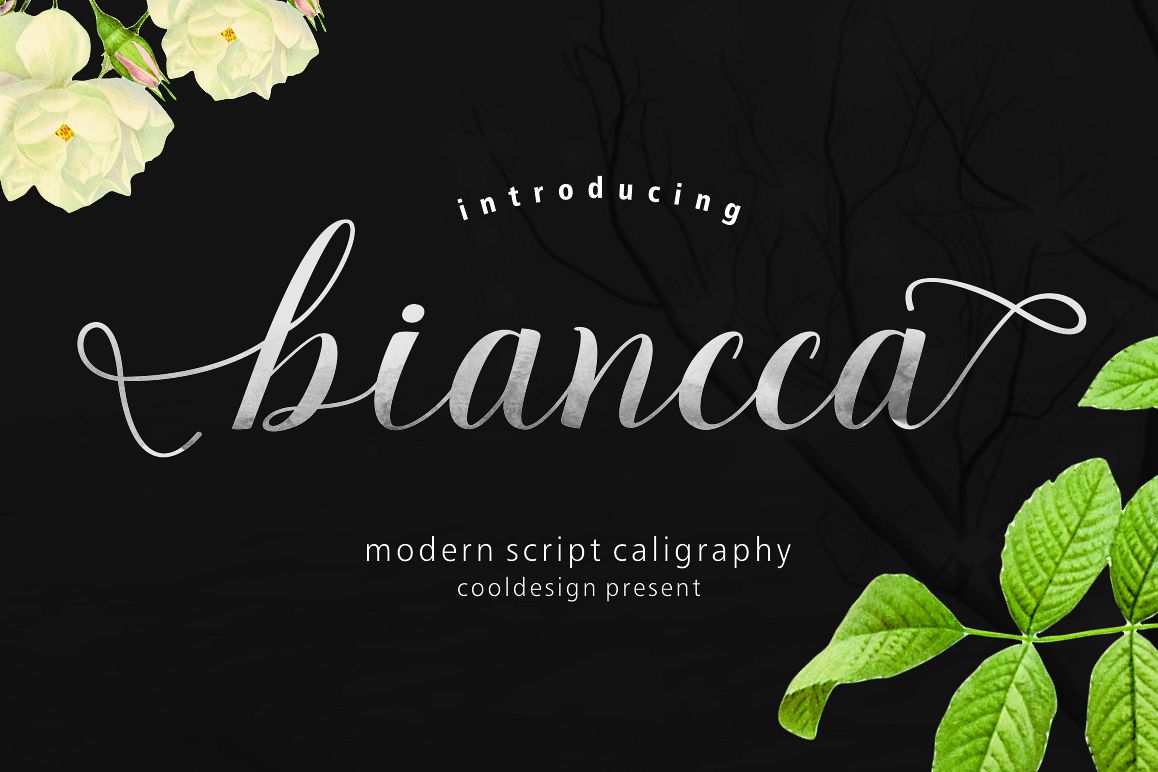
Biancca Script
Biancca is a script typeface beautiful calligraphy and modern. This font is suitable for a wide range of products each project, such as wedding invitations, greeting cards, correspondence, and various other purposes and many more.
Initial Alternates
Terminal Alternates
Standard ligatures
Stylistic sets